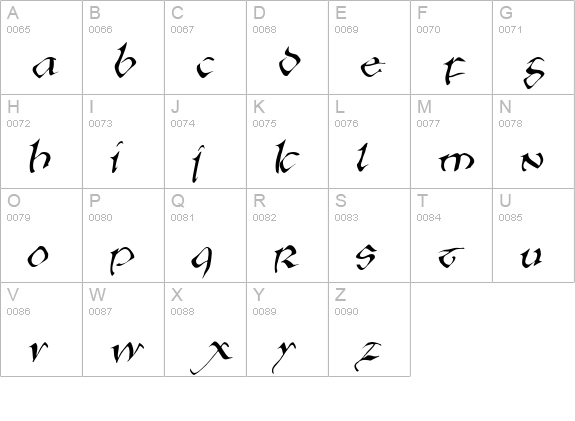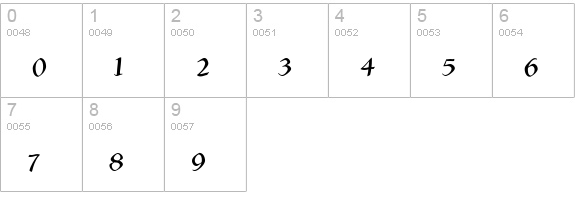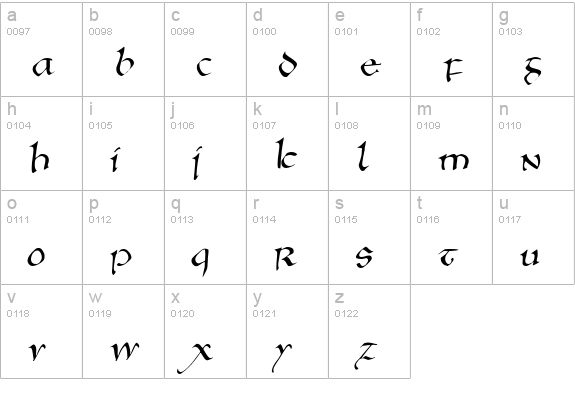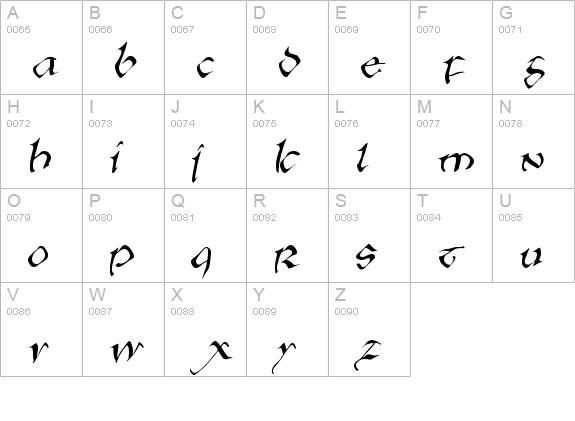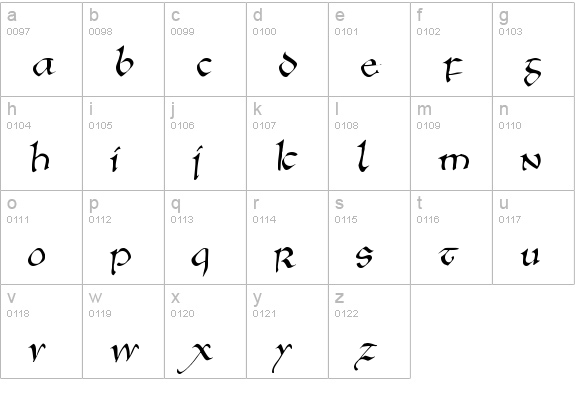
AngloSaxonItalic Font Details
AngloSaxonItalic font exudes a sense of timeless elegance and sophistication, perfect for adding a touch of old-world charm to your designs. With its distinctive angular letterforms and subtle calligraphic influences, this font is sure to make a statement. Whether you're designing invitations, branding materials, or signage, AngloSaxonItalic will lend a touch of classic beauty to your projects. Best of all, AngloSaxonItalic is available for free download at FontsMarket.com. Don't miss out on the opportunity to enhance your designs with this exquisite font. Download AngloSaxonItalic today and let its historic allure elevate your creative work to new heights.